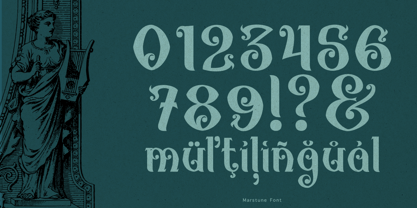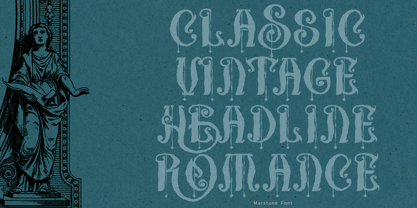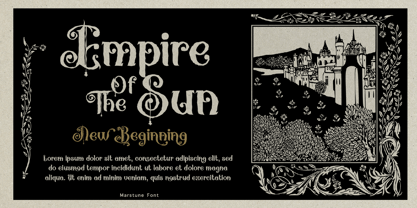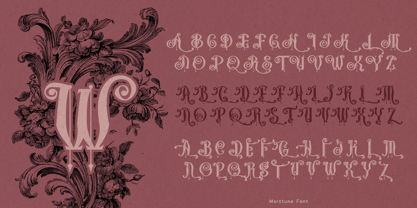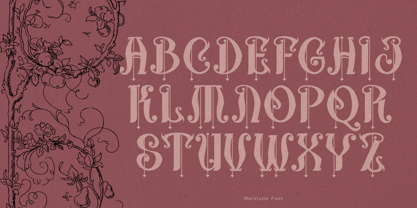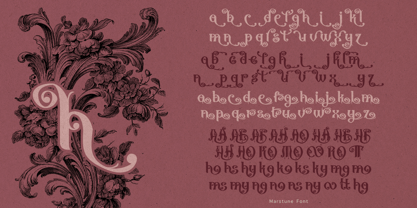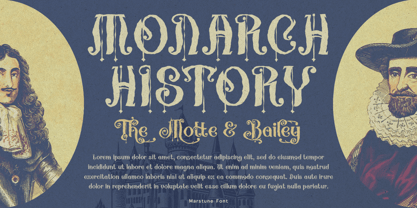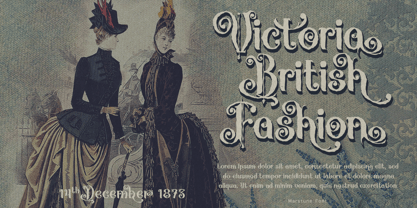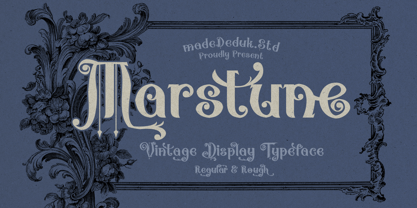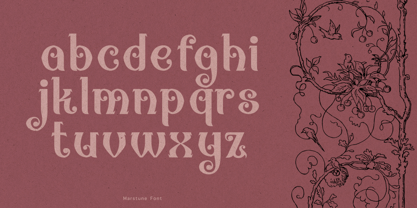
Marstune
by madeDeduk
The Marstune Font Family was designed by madededuk and published by madeDeduk. Marstune contains 2 styles and family package options. More about this family
Marstune is a vintage display font inspired by the 1900s era which will bring your project a classic strong and powerful touch. The classic style is perfect to be applied in various formal forms such as invitations, labels, restaurant menus, logos, fashion, make up, stationery, novels, magazines, books, greeting / wedding cards, packaging, labels or any type of advertising purpose makes it ideal for whether you’re creating digital content or printed materials.